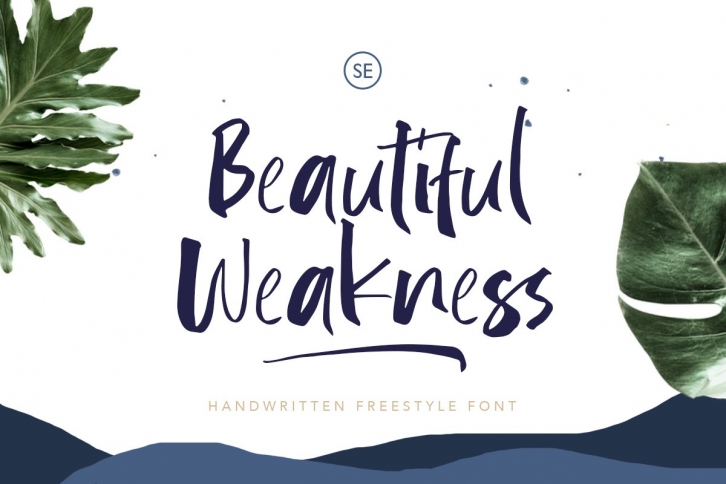
Beautiful Weakness - Handwritten Font Download
Beautiful Weakness is a great font that was designed by Saridezra. Imagine the amount of combinations you can create using this font! The archive is 5.64 MB and it was released on June 30, 2020. Beautiful Weakness looks beautiful on wedding invitations, greeting cards, logos, posters, labels, t-shirt designs, logos, business cards and is perfect for use in ink or watercolor works, fashion, magazines, packaging and food menus, children's books and more!